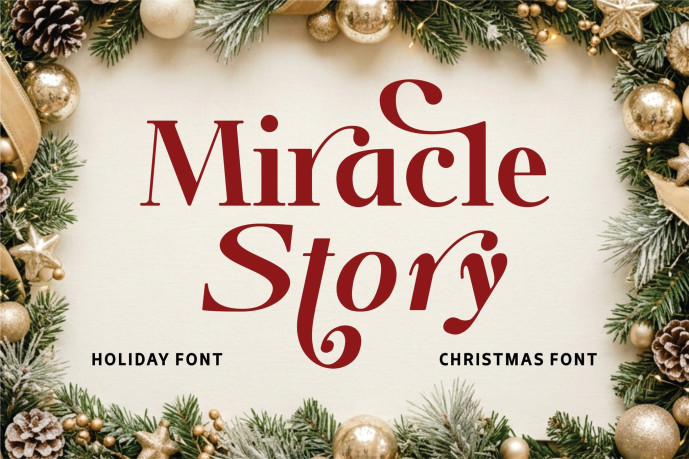
Miracle Story Font
Miracle Story Font is a magical Christmas font designed to capture the wonder, warmth, and joyful spirit of the holiday season. Inspired by festive celebrations, sparkling winter nights, and heartwarming Christmas memories, this font brings a charming and cheerful touch to every creative project.
Crafted with playful letterforms and festive character, Miracle Story combines holiday magic with excellent readability. Its unique style creates a cozy and inviting atmosphere, making every word feel special and memorable. Whether used for traditional Christmas designs or modern seasonal branding, this font delivers a delightful balance of charm and versatility.
This font is perfect for Christmas and winter-themed projects, including greeting cards, holiday invitations, gift tags, seasonal branding, festive packaging, and decorative signage. Its cheerful personality helps designs stand out while maintaining a warm and welcoming holiday feel.
Miracle Story works beautifully for posters, mugs, stickers, party supplies, social media graphics, and holiday merchandise. The festive letterforms add character and joy, helping your creations feel magical, friendly, and full of Christmas spirit.
The font is also ideal for crafting and DIY projects such as Cricut creations, SVG cut files, handmade ornaments, custom gifts, and holiday decorations. Whether used in print or digital formats, Miracle Story adds a touch of seasonal wonder to every design.